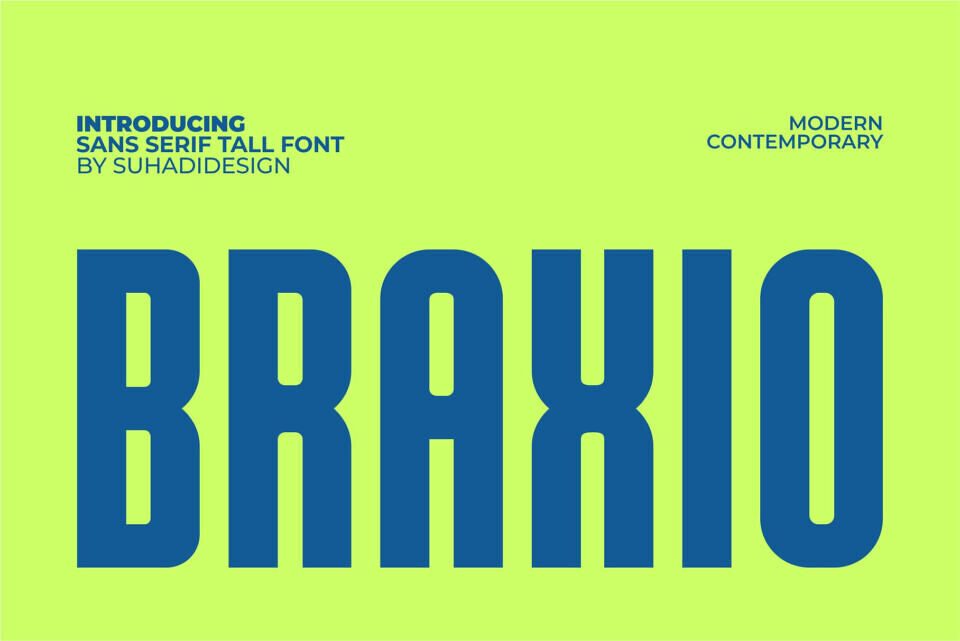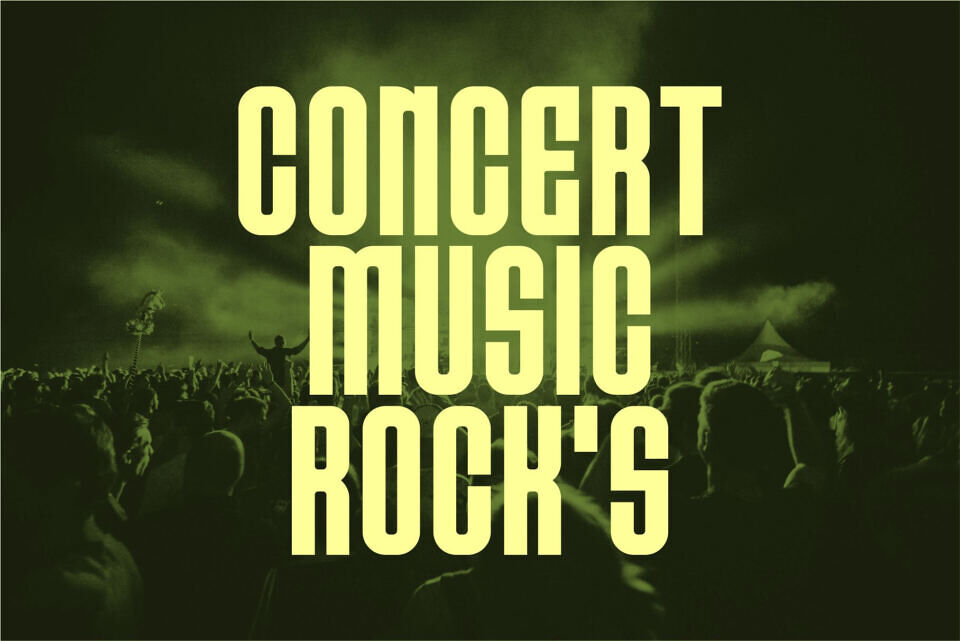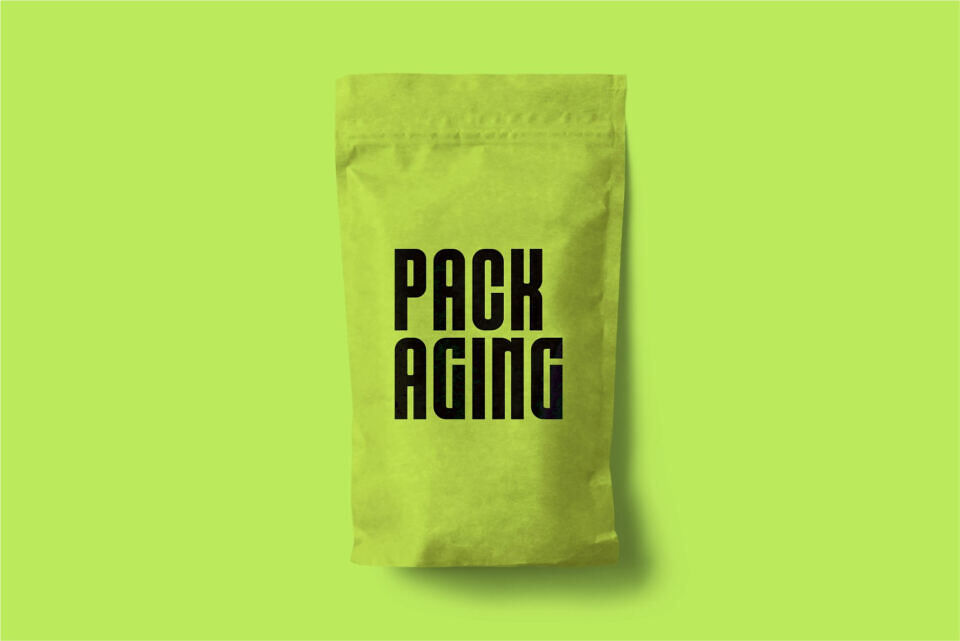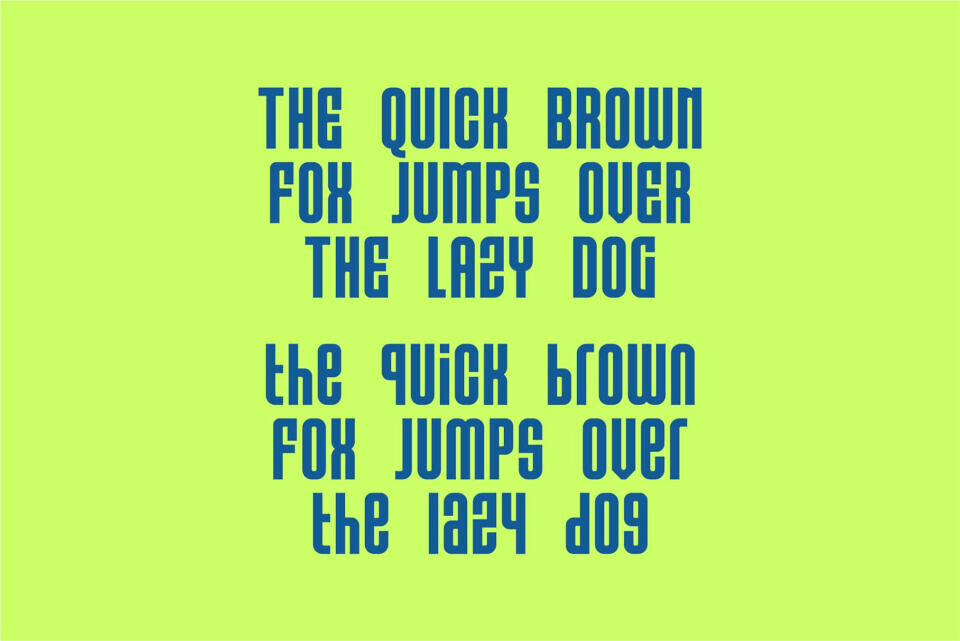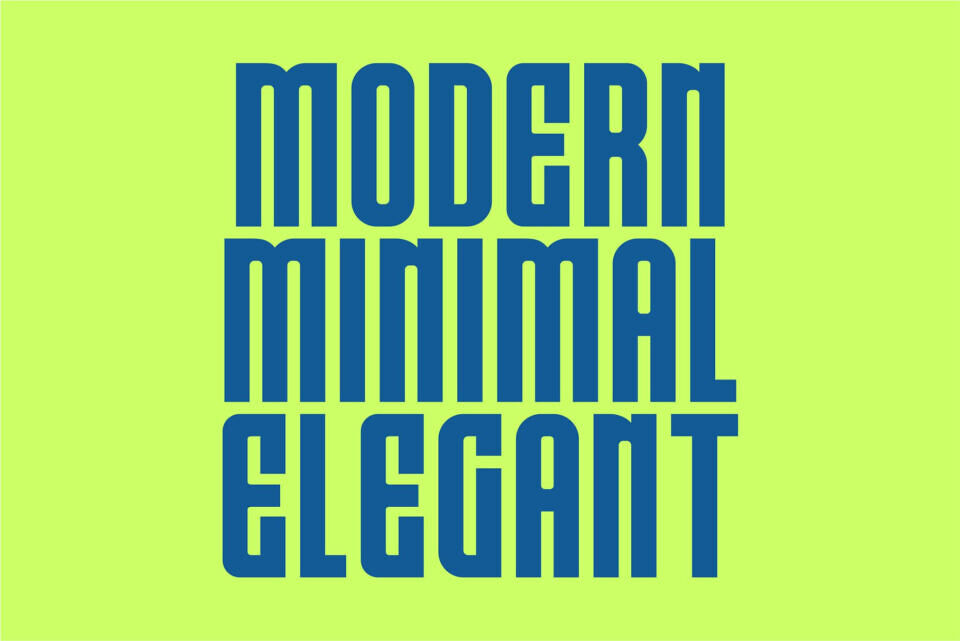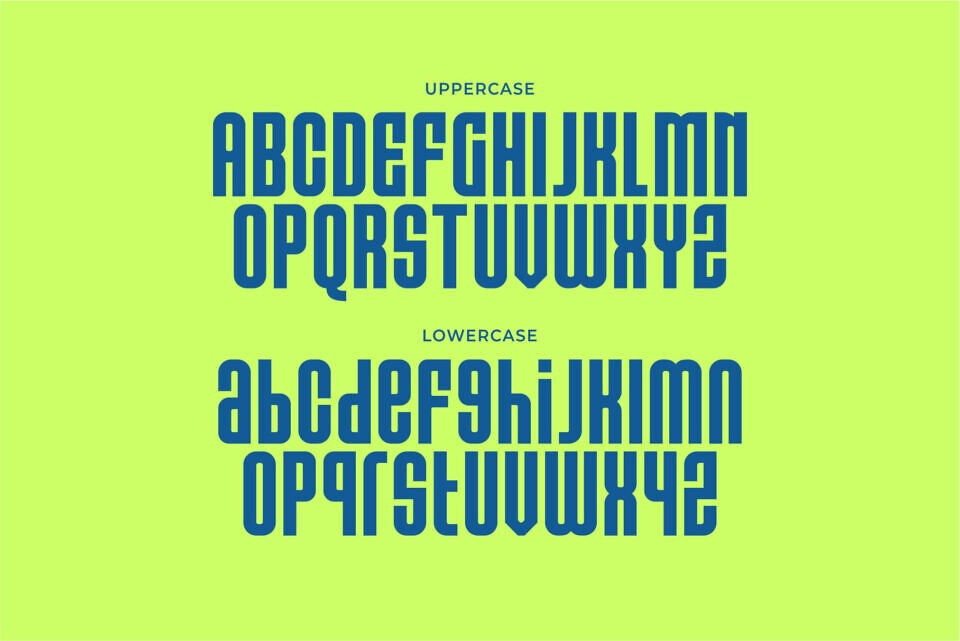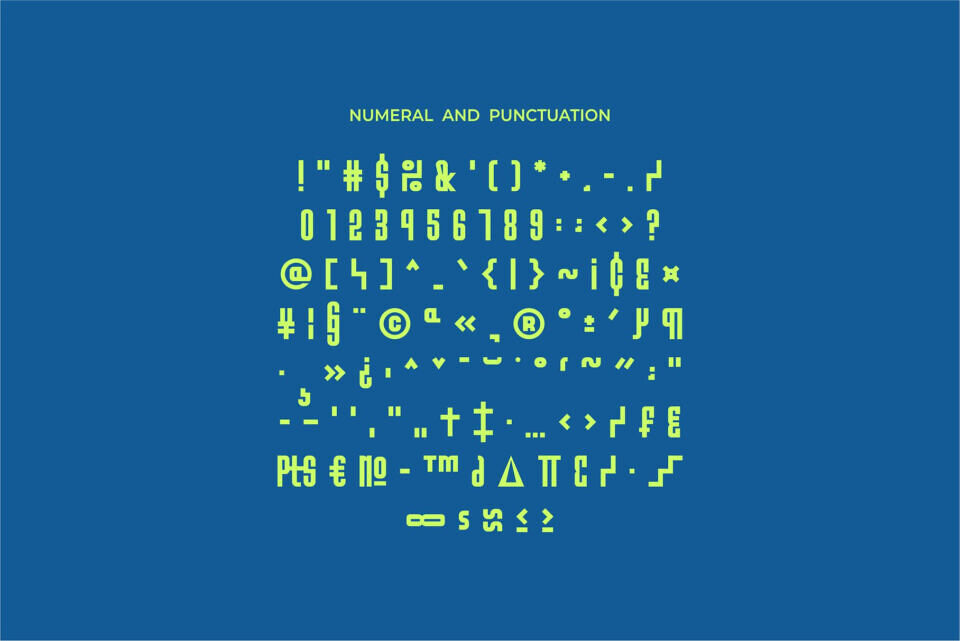
Braxio is a stylish, highly stylized sans serif font that’s a market favorite. We’ve kept this font elegant, classy, modern, stylish, contemporary, and easy to use.
Braxio is a great choice for magazines, book covers, shopping bags, packaging, logos, labels, fashion, posters, banners, bags, brands, fashion, brand names, branding, quotes, and other projects. Braxio is here to take your designs to the next level.